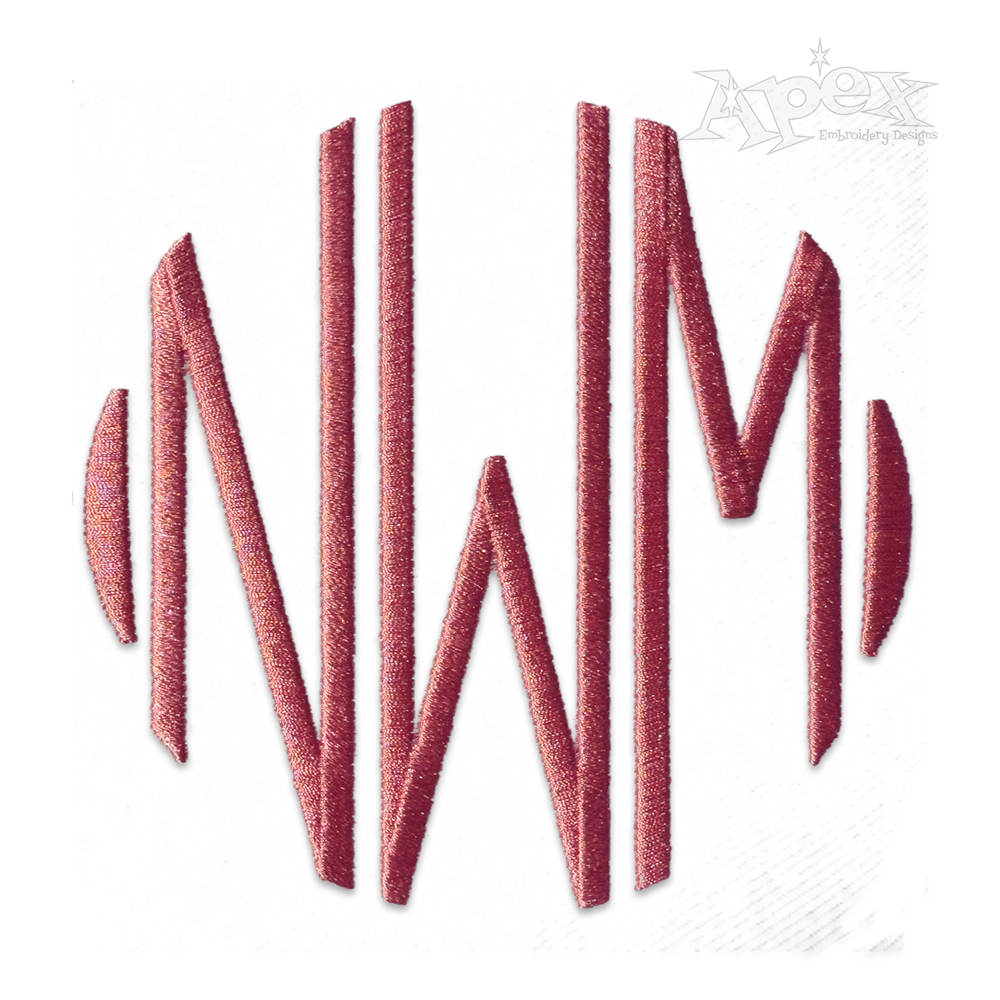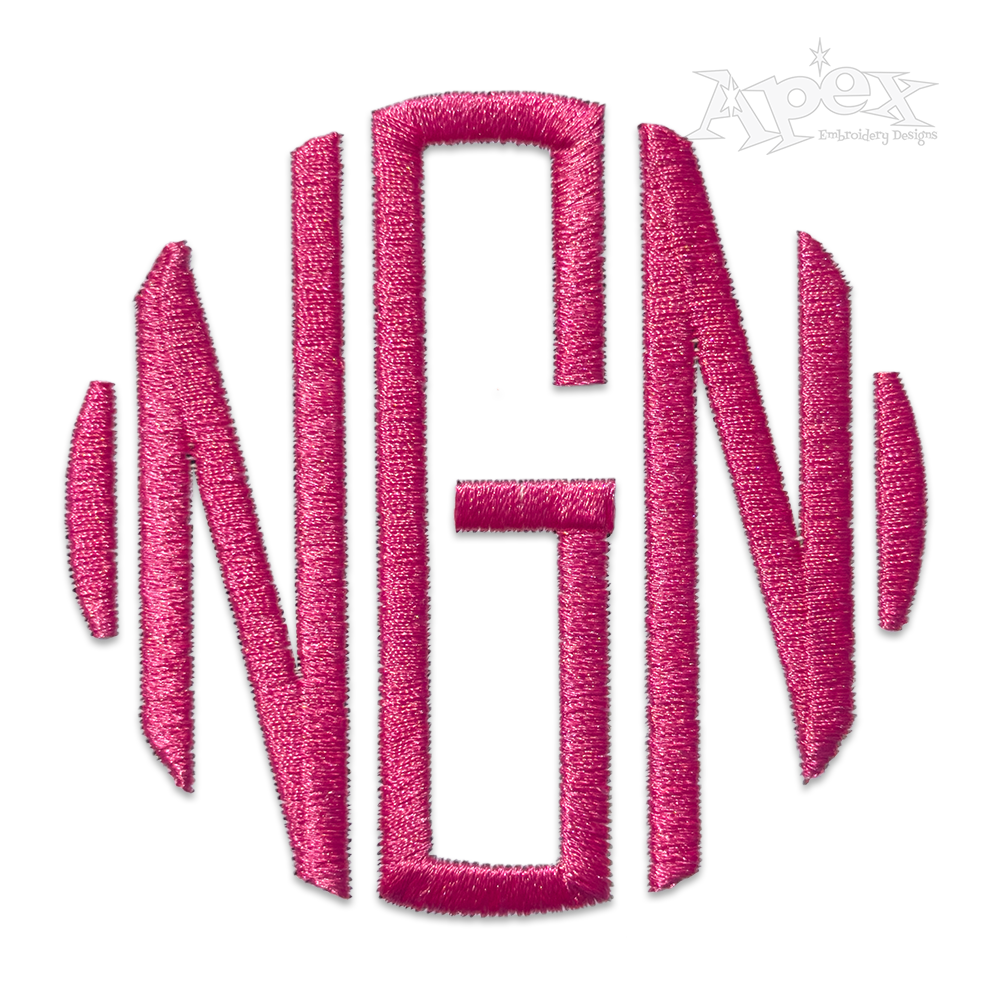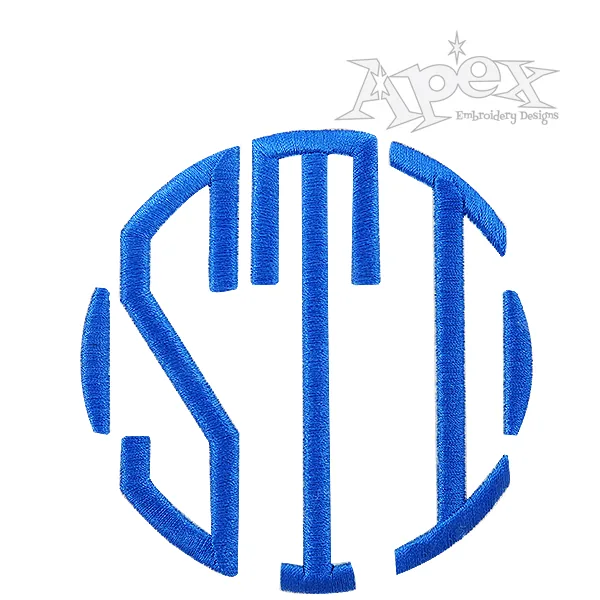
Circle Ends Embroidery Font
There is an enduring architectural serenity in the circular monogram—a unified medallion that transforms personalized textiles into timeless heirlooms. When drafting the Circle Ends Embroidery Font at Apex, our studio goal was to capture that quintessential equilibrium where individual characters yield gracefully to a grander geometric sphere. As the needle traverses each stroke, the outer contour effortlessly rounds out into a crisp disc, capturing natural light along rich satin stitches that feel both modern in their sleekness and aristocratic in their lineage. It is the ultimate statement monogram for makers who cherish tailored balance and pristine sew-outs.
The Circle Ends Embroidery Font is engineered as a complete three-part monogramming suite featuring over 150 meticulously digitized glyphs—providing specialized Left, Center, and Right letterforms alongside coordinating punctuation and accents to form a seamless circular emblem. To accommodate everything from delicate accessory accents to bold focal motifs, this design is organized into two distinct size packages:
Project Ideas for Circle Ends Embroidery Font
Circle Ends Embroidery Font Craft & Letterform Details
What makes a circular monogram triumphant on fabric is not just its perimeter, but the disciplined mathematics of its negative space. In the Circle Ends Embroidery Font, each flanking letter has been digitized with an engineered taper—the outer stroke swells outward to define the boundary curve, while the inner face preserves a clean, upright vertical axis that complements the middle character. We carefully calibrated the pull-compensation along the curved outer borders to ensure that whether you stitch on crisp linen or soft cotton canvas, the design pulls together into a true geometric circle rather than an elliptical distortion.
Beneath the surface, an intentional multi-pass underlay locks down the underlying fabric weave, stabilizing each section before the dense satin topstitching glides into place. The stitch directionals are subtly angled throughout the contours, refracting light across the rayon or polyester threads to produce a liquid-smooth luster. The result is a masterfully balanced, polished embroidery experience that stitches out smoothly and endures as a hallmark of bespoke personalization.